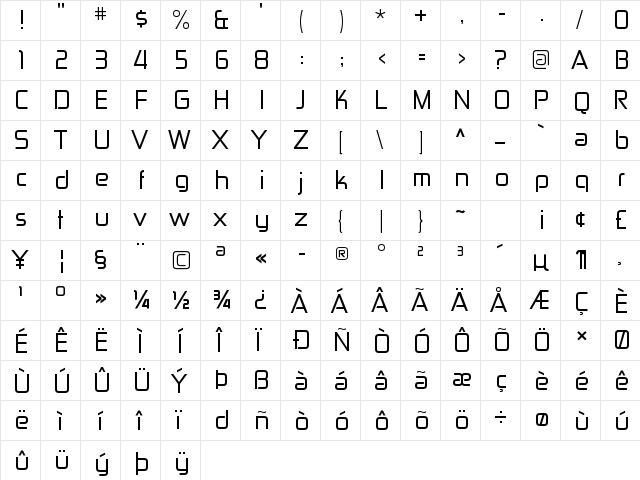
Zekton Free Regular
Design Context for Zekton Free Typeface
Zekton Free is a composed and adaptable typeface that performs quietly and consistently across a wide range of design contexts.